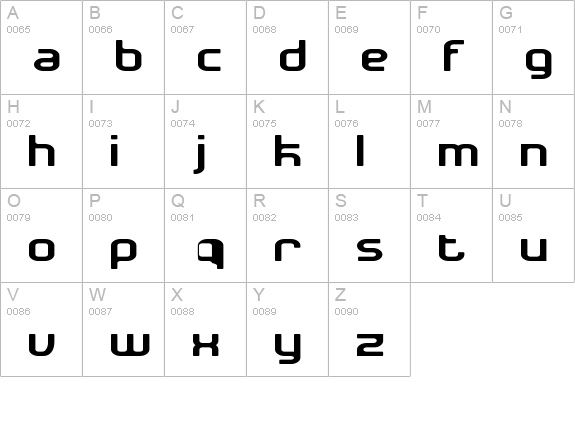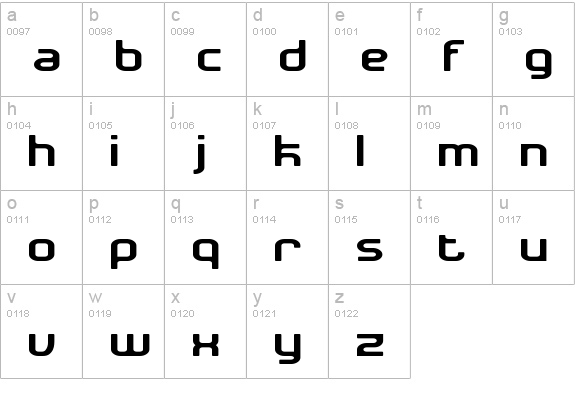
New Detroit Font Details
Introducing the bold and modern New Detroit font, a versatile typeface designed to make a statement in your designs. With its sleek lines and contemporary look, New Detroit is perfect for logo design, branding projects, posters, and more. This font exudes a sense of urban sophistication and is sure to catch the eye of your audience. What sets New Detroit apart is not only its striking appearance but also the fact that it is available for free download at FontsMarket.com. This means you can easily access this premium font without any cost, making it a valuable addition to your font collection. Whether you're working on a creative project or looking to enhance your branding, New Detroit font offers endless possibilities for creating visually impactful designs. Download it today and elevate your work with this stylish and modern typeface.